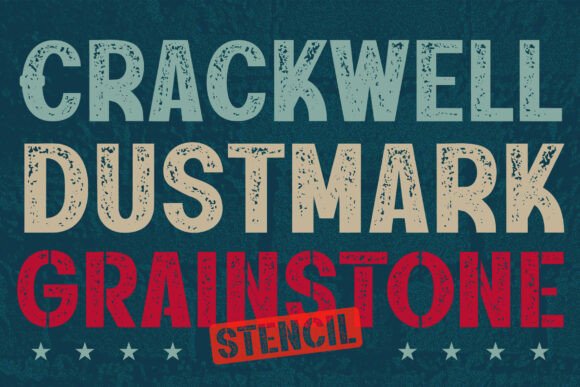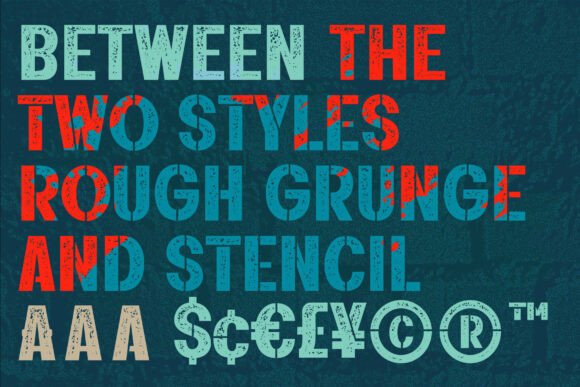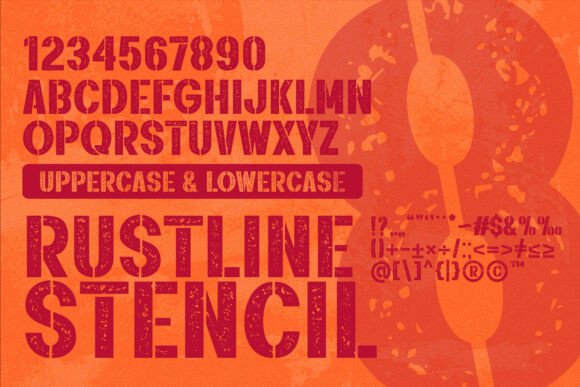
Rustline Font: Distressed Sans Serif for Bold Logo Design & Headlines
About the Rustline Font
Unleash your creativity with Rustline Font, a versatile font perfect for a wide range of applications. Rustline is a unique and distressed sans serif font. A little bit quirky, this font looks incredibly adept on a wide variety of contexts!
Rustline’s distressed aesthetic makes it ideal for headlines, branding projects needing a vintage or industrial feel, and short-form text on posters or packaging. Its quirky nature shines in applications requiring a touch of rebellion or character. However, its low x-height and uneven stroke weights make it unsuitable for body text or UI elements where readability is paramount. Long paragraphs set in Rustline will be difficult to read.
Pairing Rustline effectively depends on the desired balance. For a more rugged look, consider a geometric sans-serif like Futura or a sturdy serif like Garamond. To emphasize its quirky side, a playful script like Pacifico could be used for secondary text. A neutral sans-serif like Lato can provide contrast and readability when used alongside Rustline in a logo or headline.
Rustline projects a bold, slightly rebellious personality. It’s best suited for brands and projects that want to convey a sense of vintage grit, authenticity, or a handcrafted aesthetic. Think coffee shops, craft breweries, or clothing brands targeting a younger, edgier demographic.
Rustline Font Usage Examples
Rustline Font Example